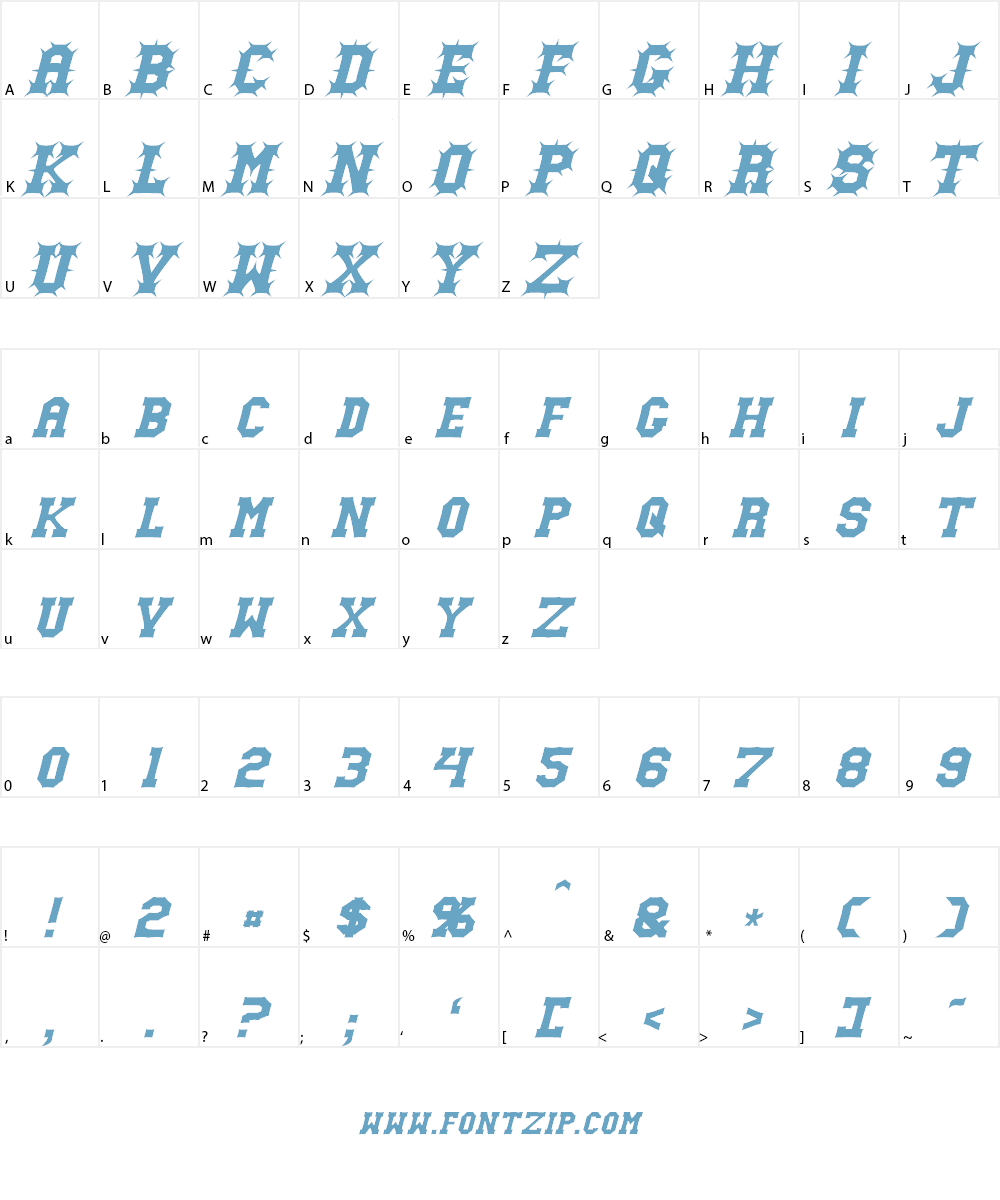
Gutcruncher was originally based on the title logo of Games Workshop’s infamous Blood Bowl game series, but has since become the official font of the game line! A spikey, slightly distorted take on classic “university” lettering styles, this can be comfortably used in all your “fantasy” sports games. Includes regular and italic versions.